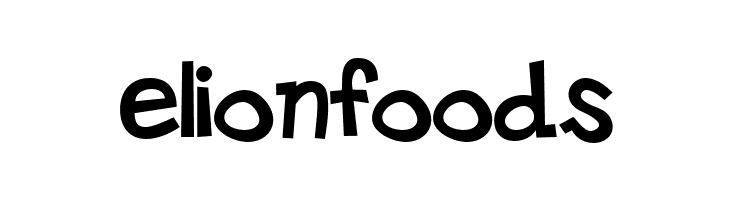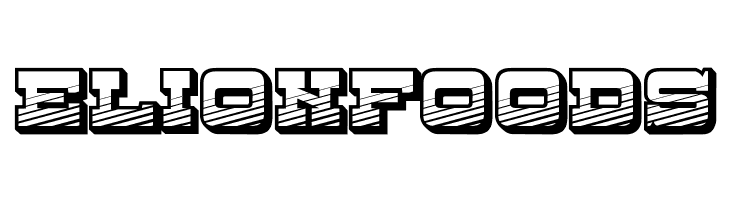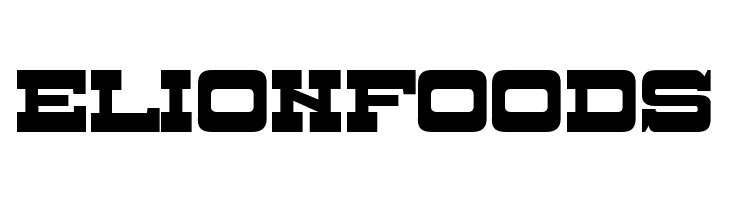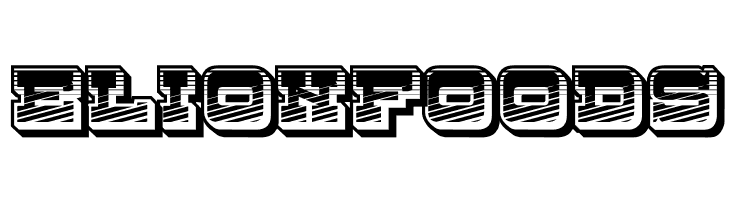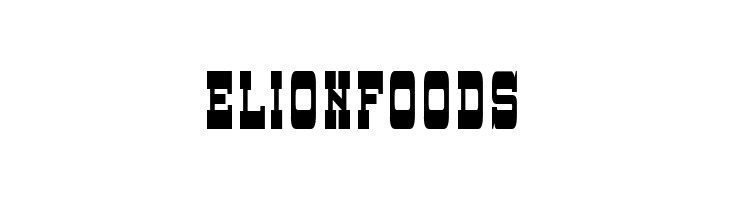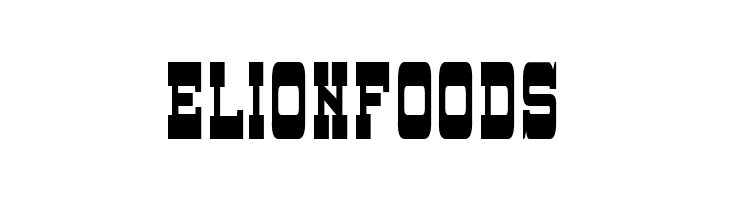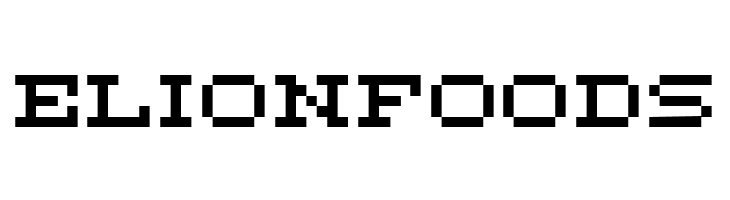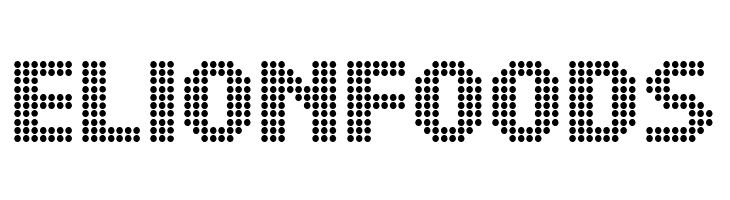
A modern, geometric font with clean lines and a minimalist style.
A bold, geometric font with a punk rock aesthetic and condensed, thin structure.
A Halloween-themed decorative font with characters resembling carved pumpkin faces.
A playful, modern font with tall, narrow letters and rounded edges.
A playful and quirky font with a modern, whimsical style.
A whimsical font with characters integrated into computer-themed designs.
A classic serif font with elegant, bold characters and unique lowercase loops.
A classic serif font with elegant curves and a playful touch.
A bold, geometric font with a modern, stencil-like design.
A bold, modern, and condensed font with uniform strokes and rounded edges.
A modern, italicized font with a sleek, futuristic design and tight character spacing.
A geometric outline font with a futuristic and modern aesthetic.
A modern, geometric outline font with an italic slant, ideal for futuristic designs.
A rugged, hand-drawn font with an organic, textured appearance.
A futuristic, geometric font with bold, rounded edges and a digital aesthetic.
A sleek, modern italic font with a futuristic design and consistent stroke thickness.
A futuristic outline font with a geometric and digital style.
A modern, geometric outline font with an italic slant.
A bold, geometric font with a futuristic and modern design.
A bold, geometric, and futuristic italic font with sharp angles.
A modern, geometric font with a futuristic, stencil-like design.
A bold, geometric font with a shadow effect, offering a futuristic and industrial aesthetic.
A playful and decorative font with bold, whimsical characters.